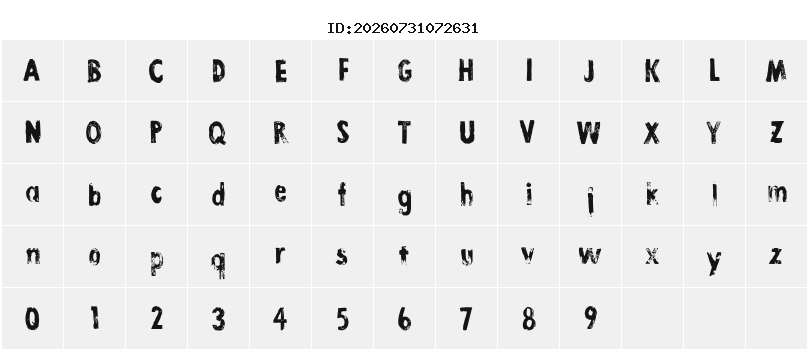
• Font Name: Lino Stamp
• Designer: Ursula Hitz
About Lino Stamp.ttf
Lino Stamp.ttf is a modern, elegant sans-serif font designed for ultimate readability and visual harmony. Perfect for branding, headlines, web design, and print materials.